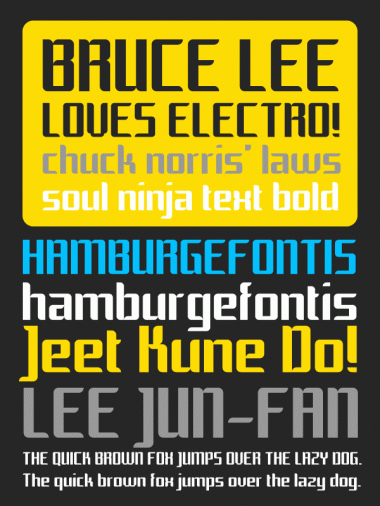
• Darker variation of Soul Ninja text. Friendly sans-serif done in my vacation... Works fine as pixel font. Hope you enjoy it! If you liked please give it a good rating! Soon with extended latin characters... I promise! More works at: www.lucazevedo.com